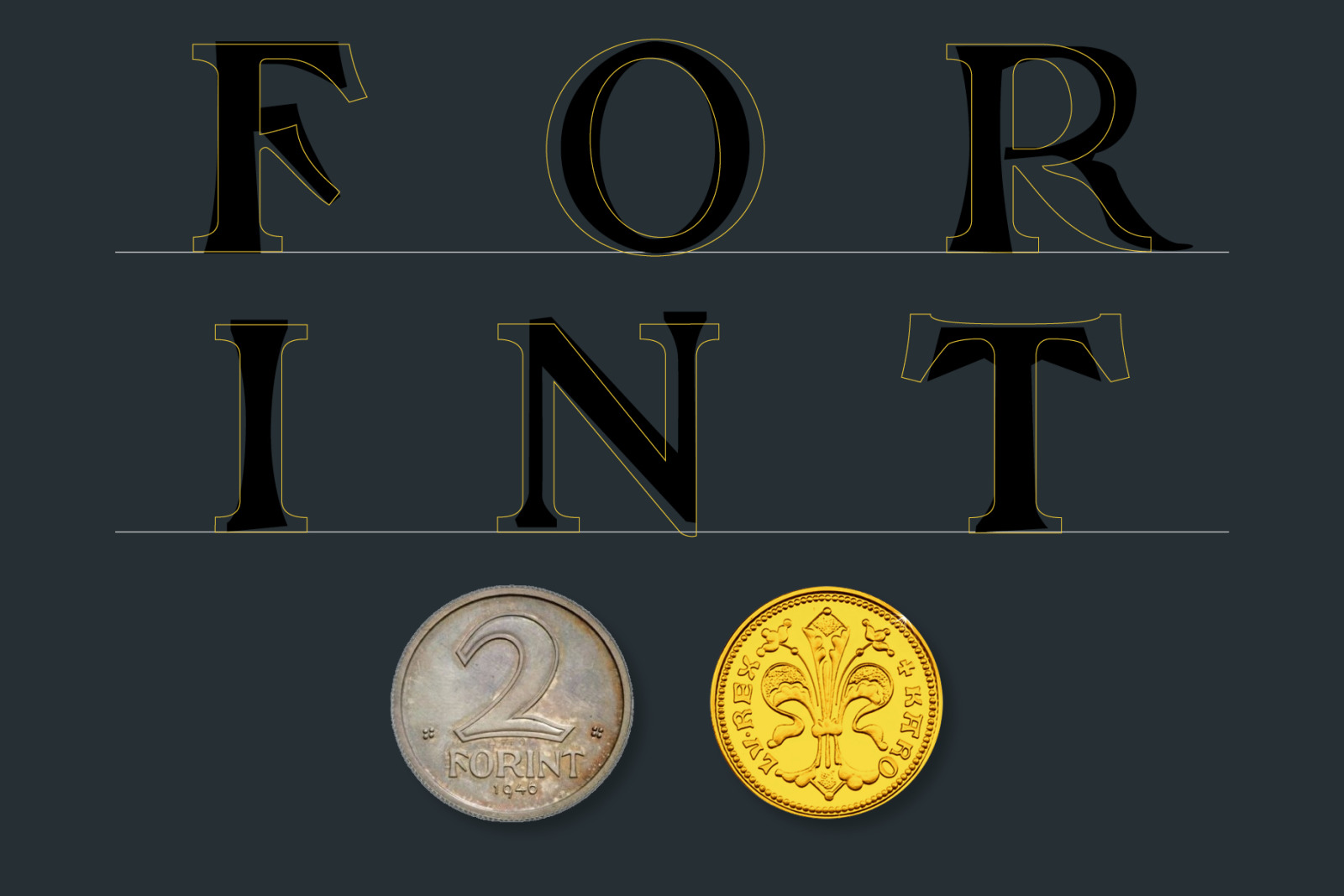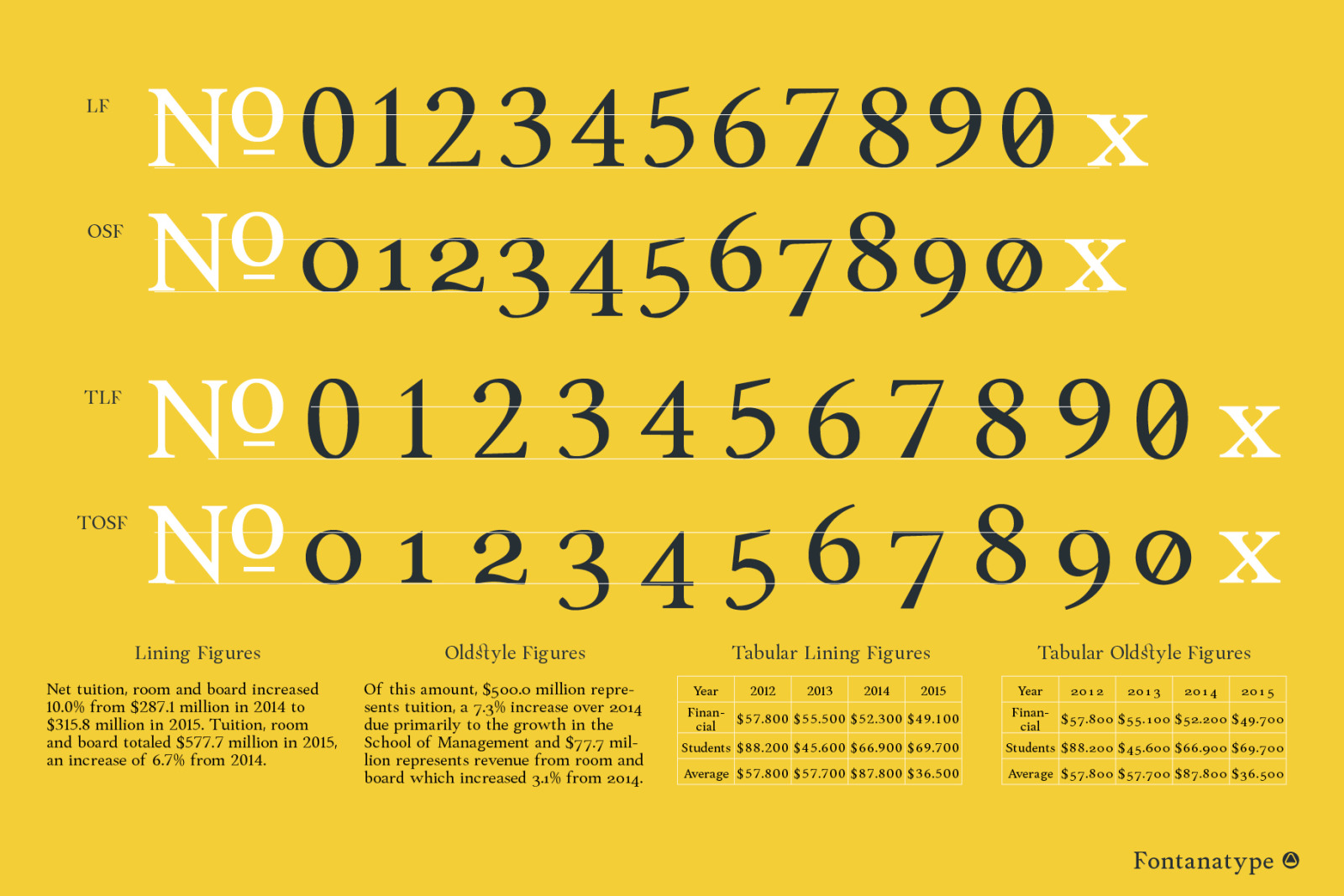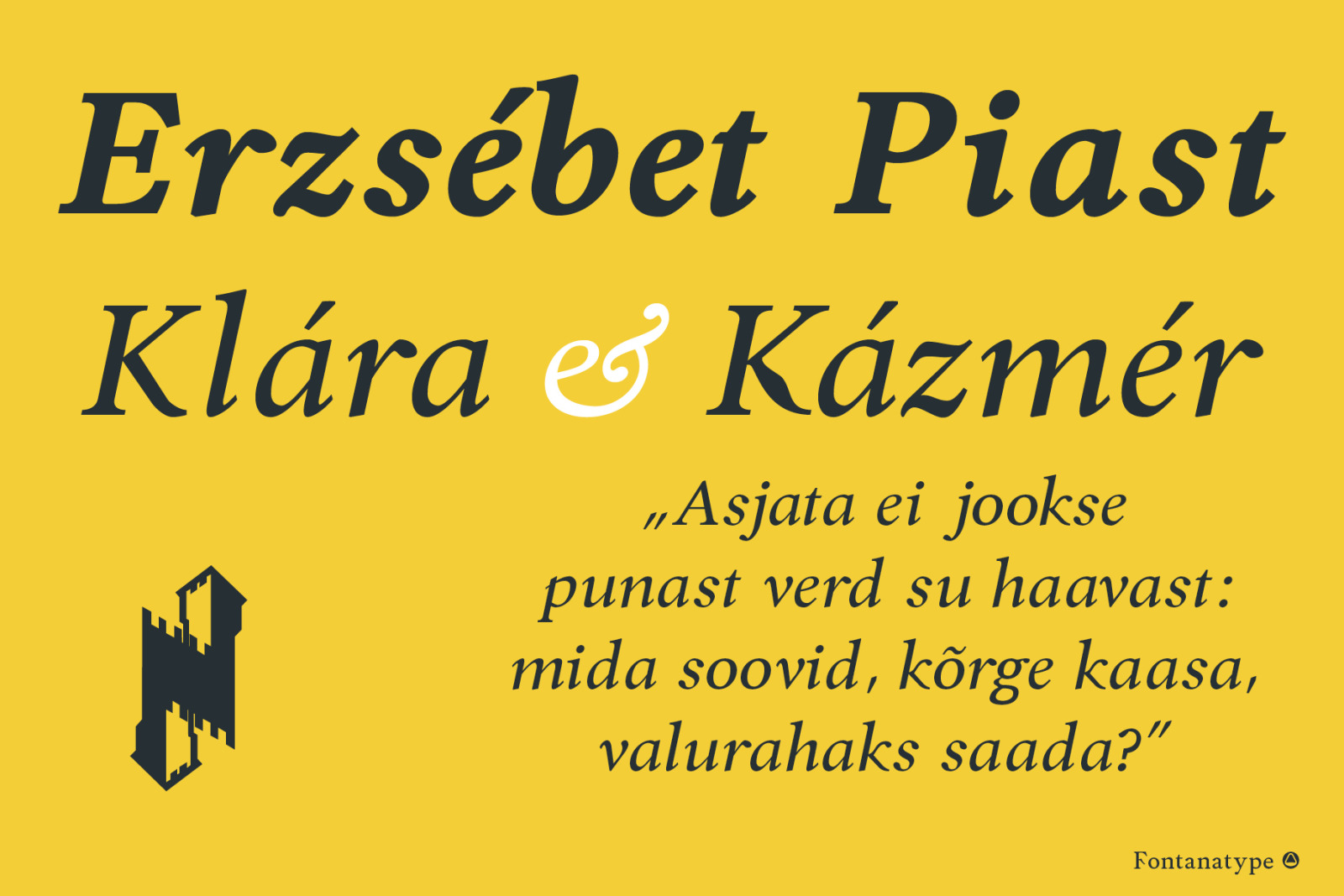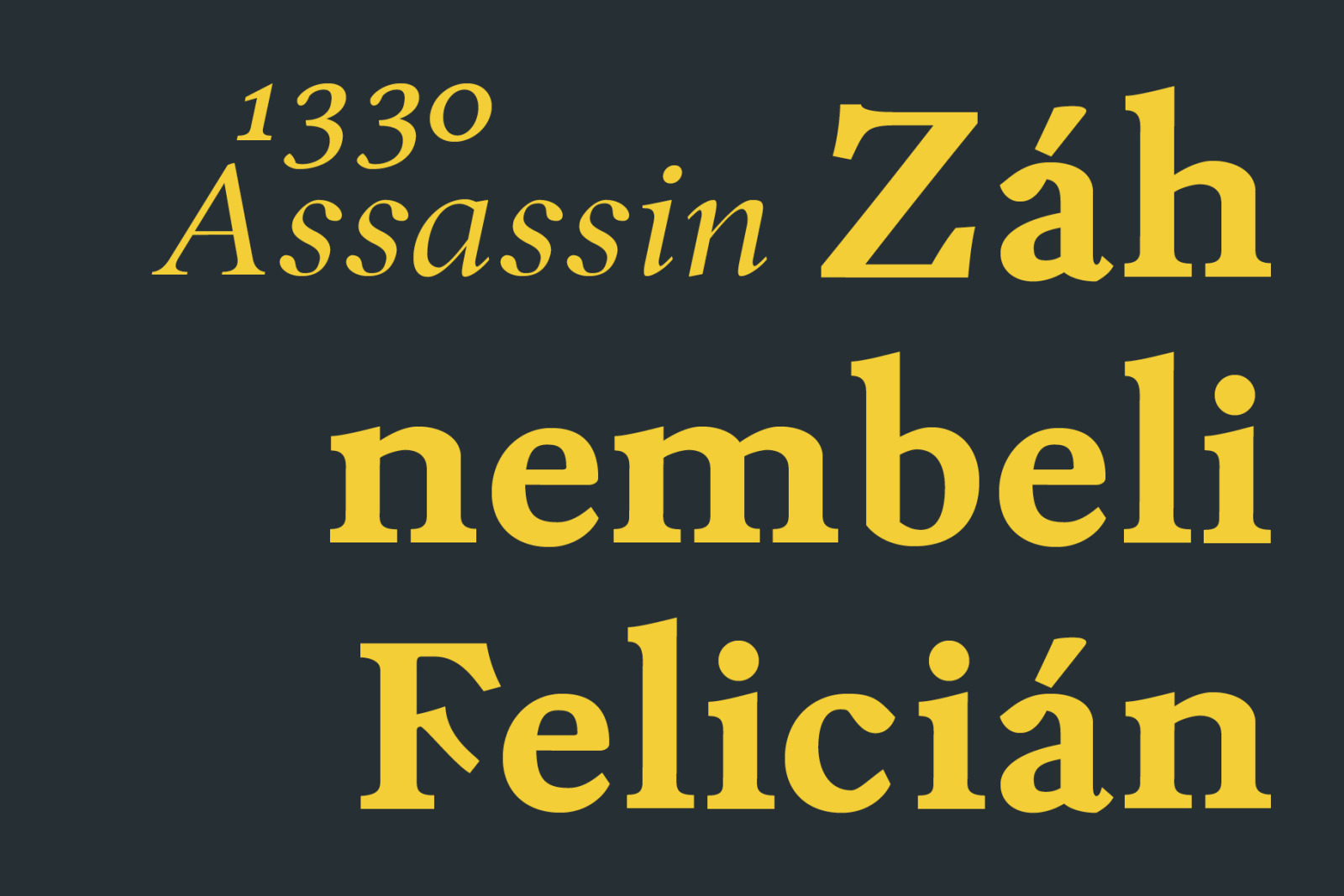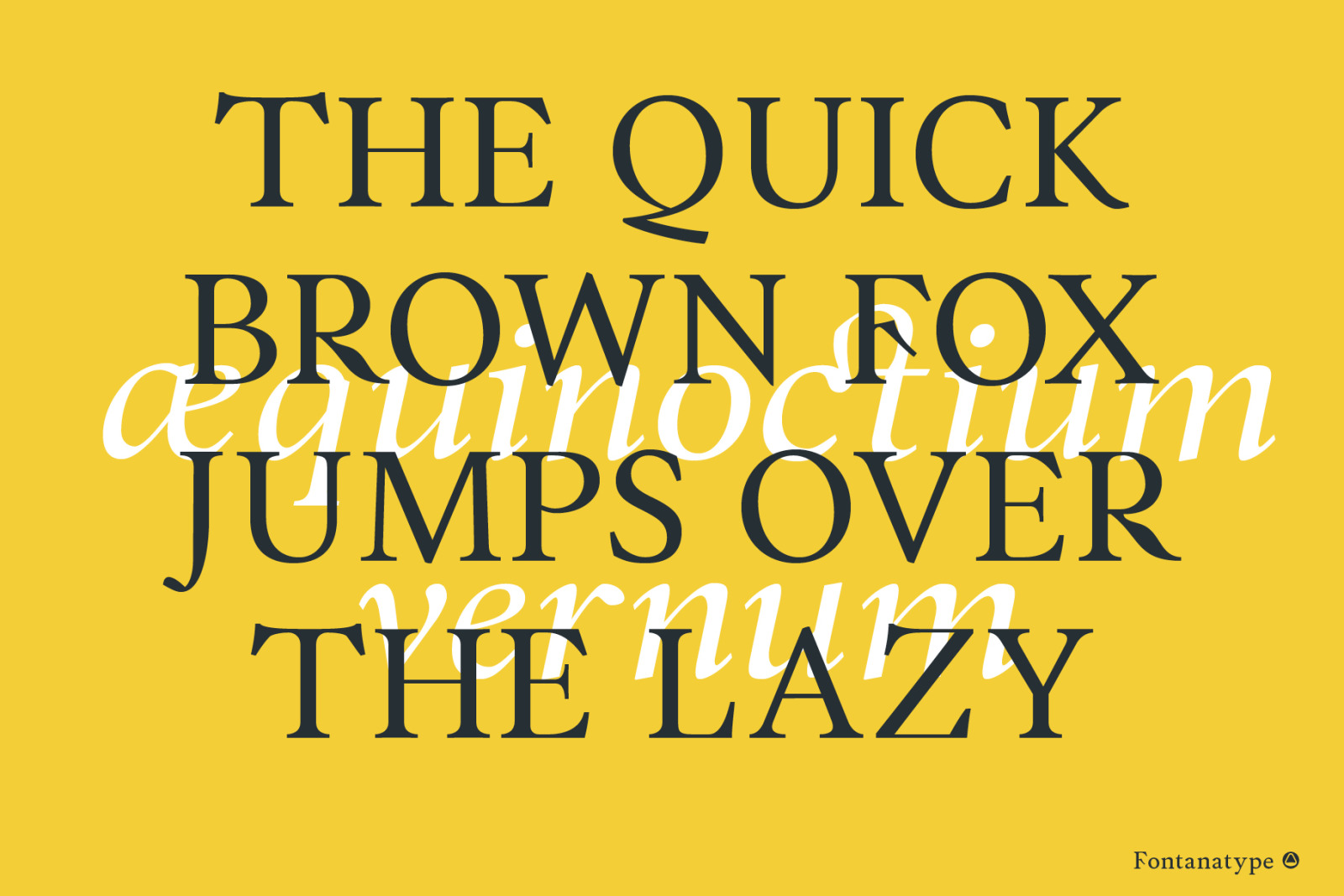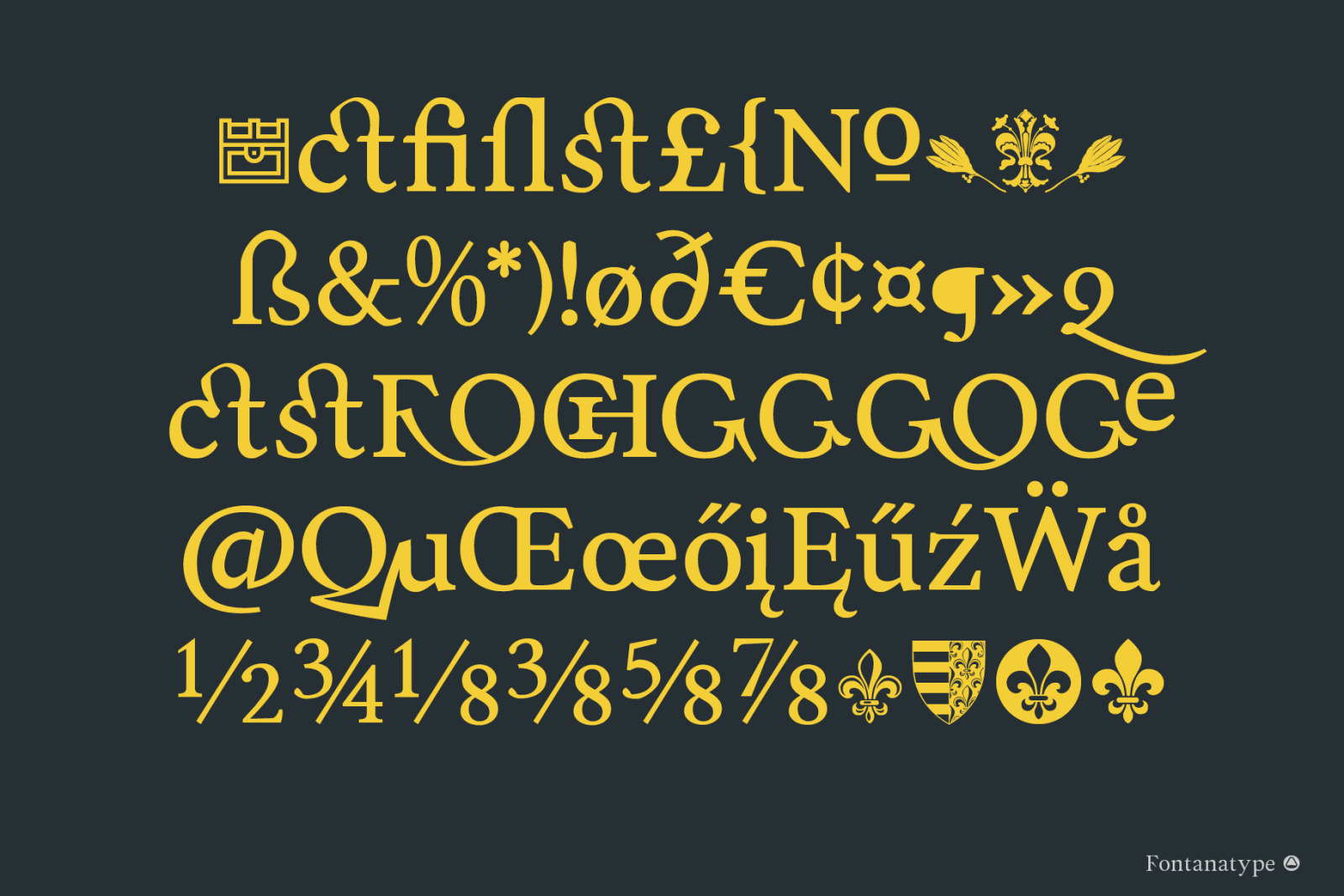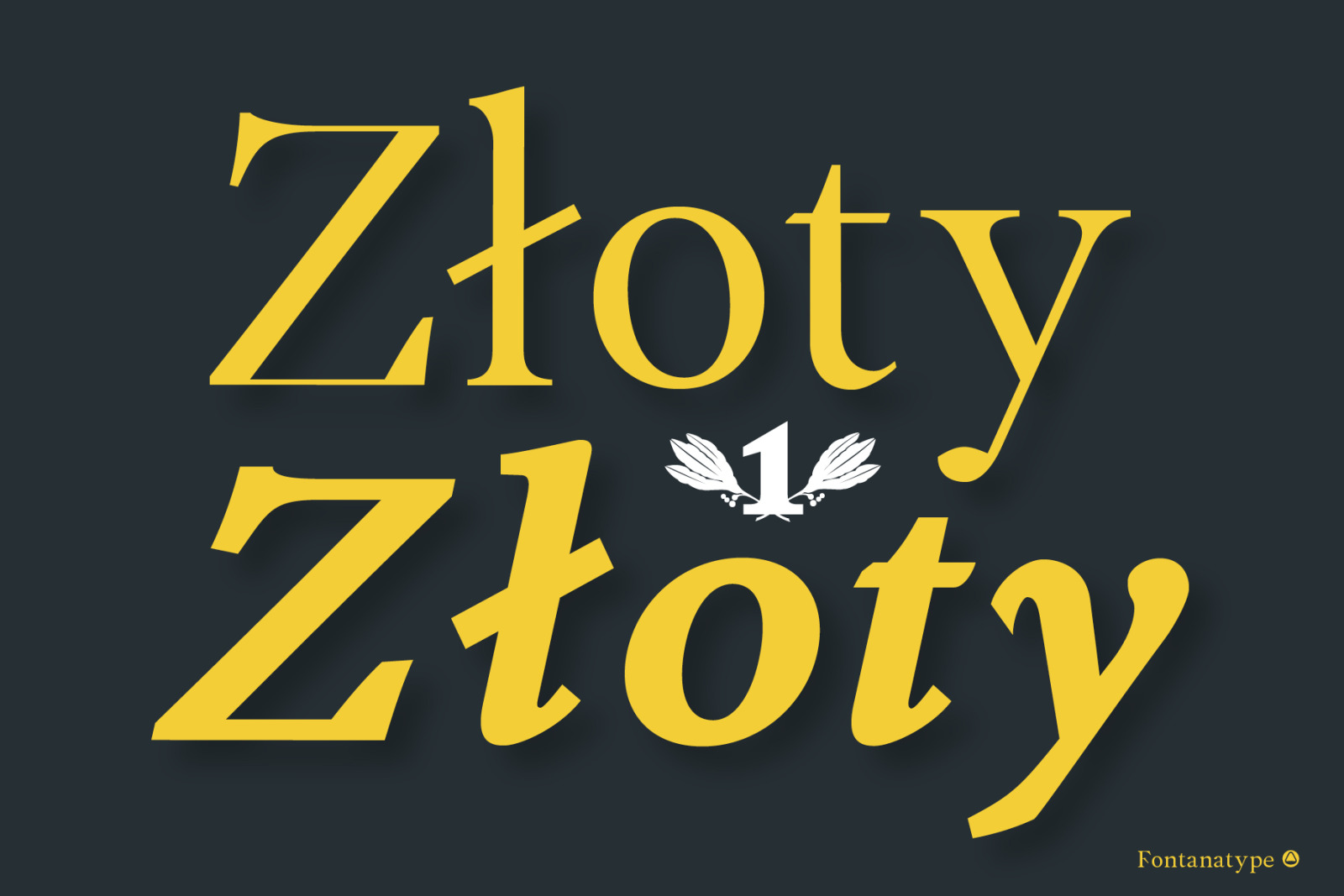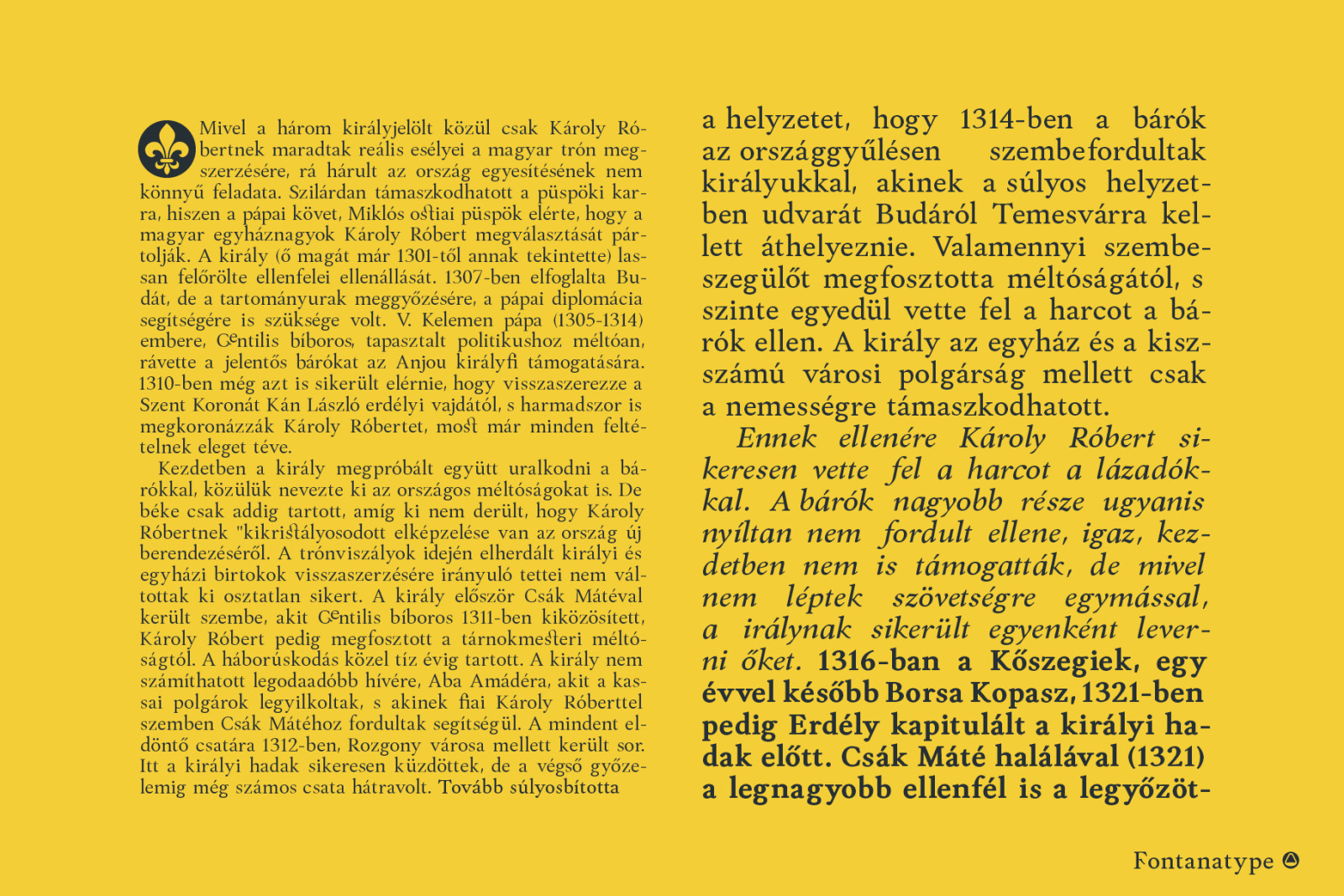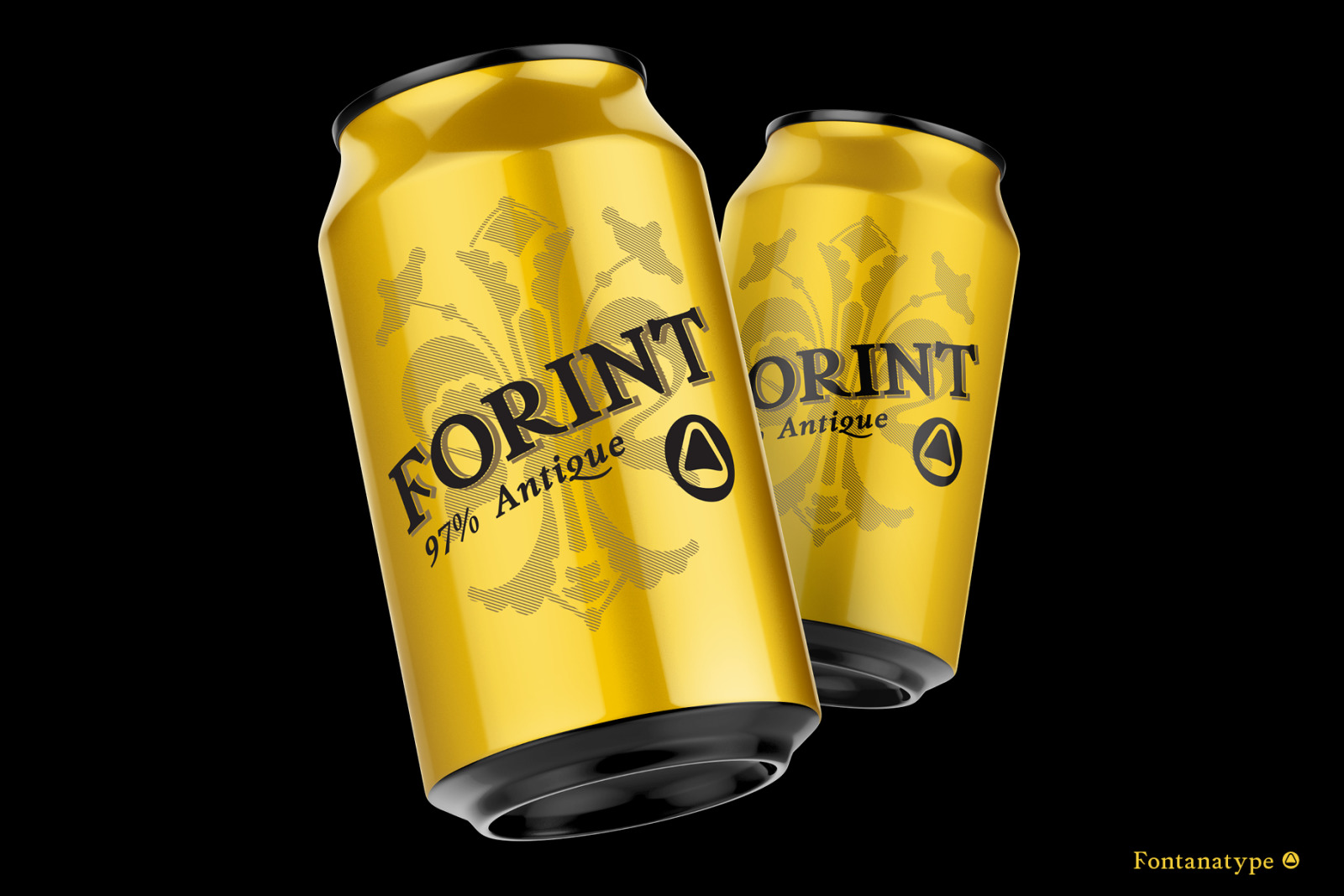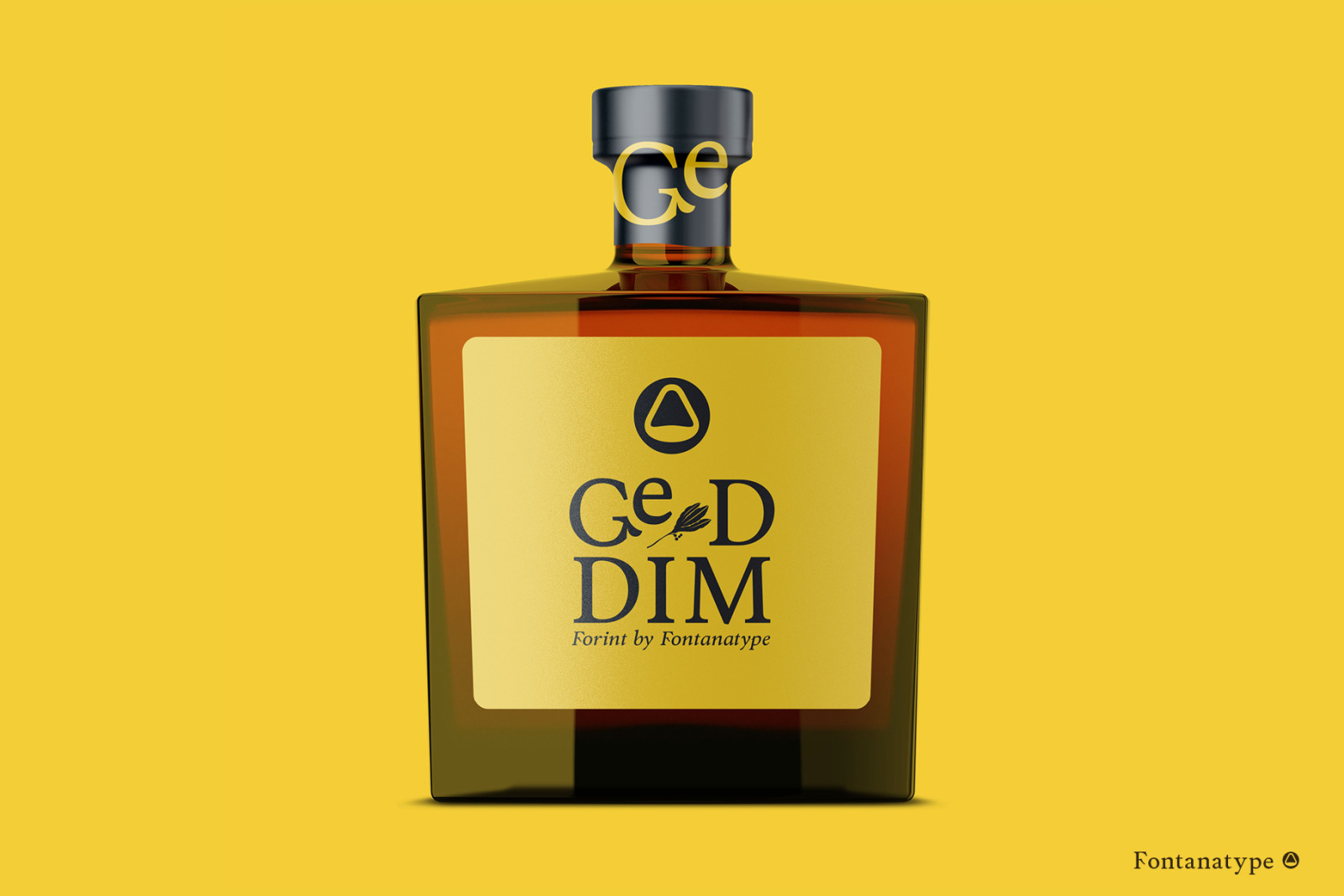
Forint Font
The new currency created in 1946, the Forint, had the task of breaking down the hyperinflation after the Second World War.
The original coin is characterized by numerous typographical errors and oddities. Unfortunately, the 75th-anniversary coins only magnified these hiatuses and did not fix them.
Designed from these oddities, I tried to conjure up something special. The history of the Forint dates back to the XIV. dates back to the century. Curiously, however, a characteristic Baroque-style typeface has born from the 1946 coin. The letters reflect history, it creates a sense of natural softness and expressiveness. I pushed the concept into a usability-focused direction, to work as a bold tool and beautiful communicator.
Forint 7 weights, italics, and major Latin-based languages. True italics advance the aesthetics, bringing energy and making it suitable for modern design.
The type family melds organic curves and gentle repetition into a powerful and harmonious type. At large point sizes, you can appreciate the letter shapes, whilst the same restraint and focus create an even texture for small point sizes and long reading.
The font broadens its use by supplying weights from thin to black. The natural curves, swells, and sloping trunks grow in character as the font gains weight. The thinner weights have lowered contrast and optical corrections to create a warm and gentle appearance.
The Forint character set incorporates additional symbols, stylistic alternates, unique ligatures, and case-sensitive punctuation – producing a stable workhorse family ready to tackle projects of any size.
Forint is great to use in a digital environment but also looks great on the packaging and as body text.
The history of the medieval Forint coin: Charles Robert was the first European ruler to introduce a gold currency in his country. The variety of small denominations of silver used in the Árpádian era and the stable gold currency that replaced Byzantine gold meant a comprehensive financial reform. Although European rulers followed the example of Károly Róbert, precious Hungarian gold became the most sought-after and reliable currency in Europe.